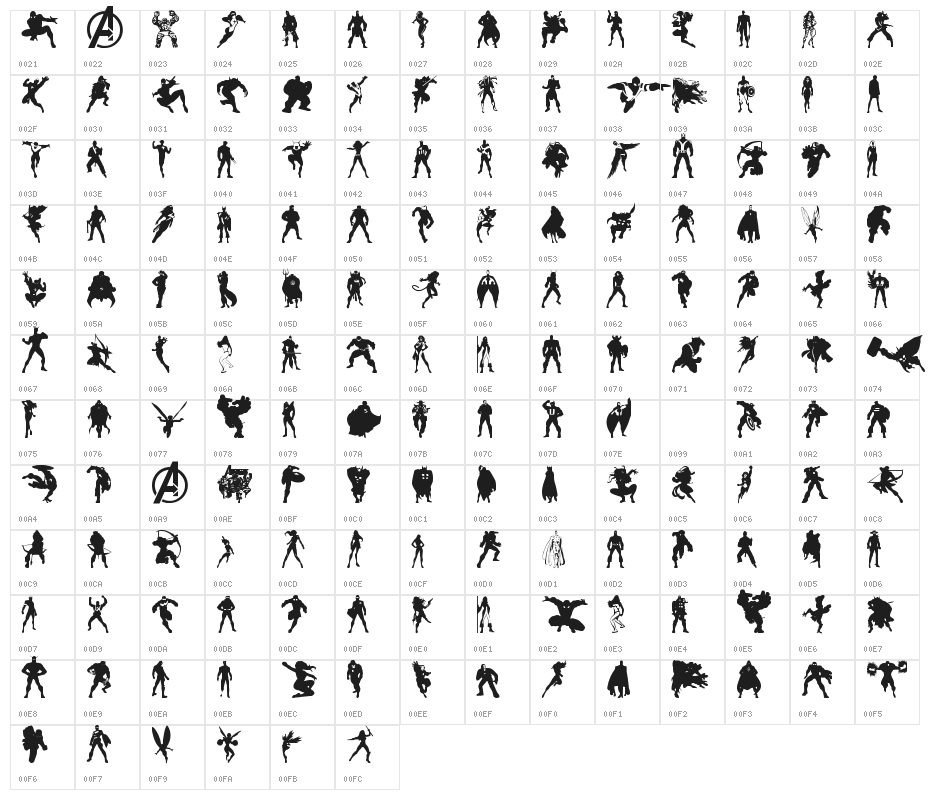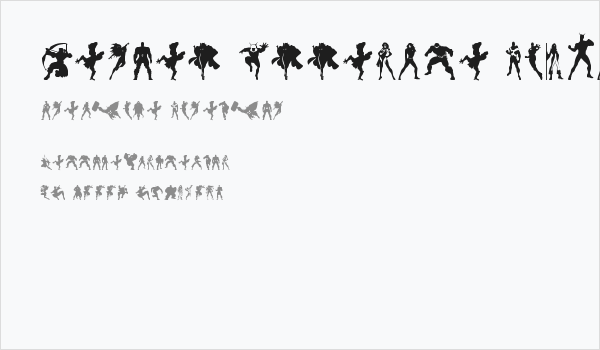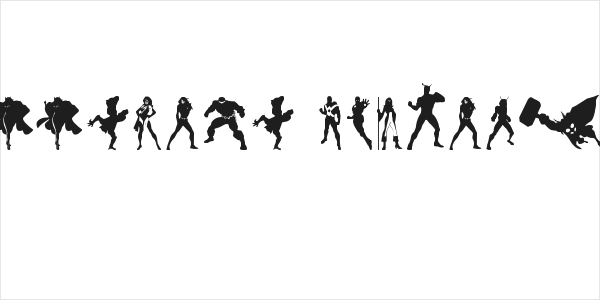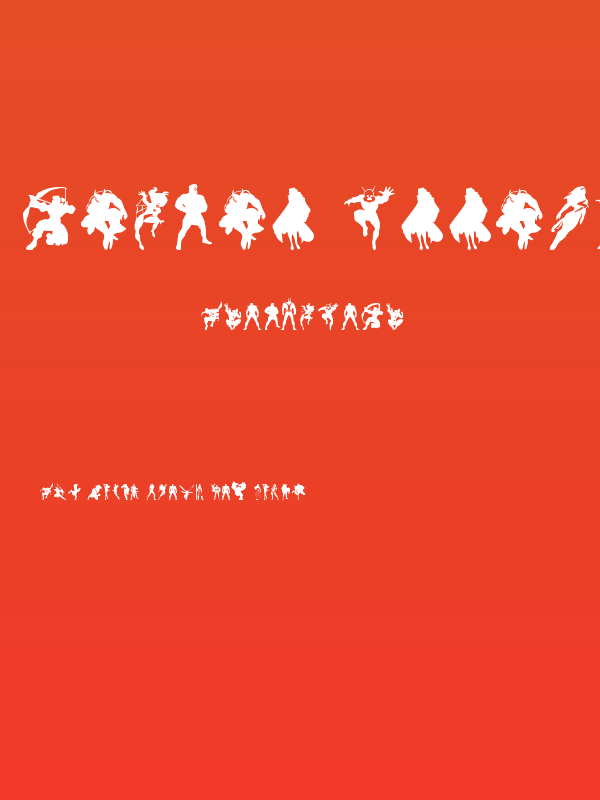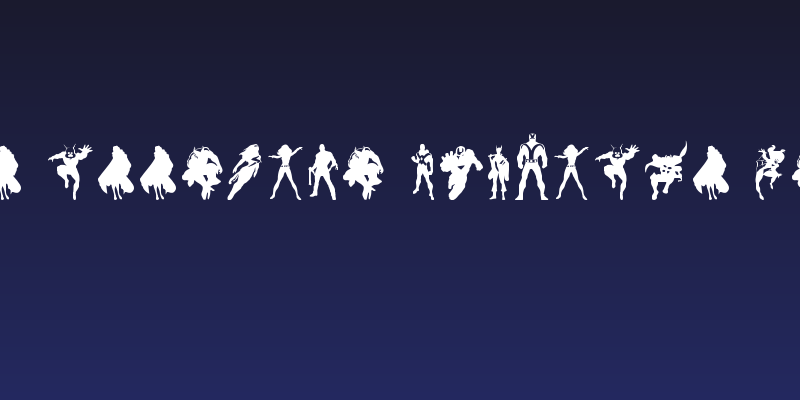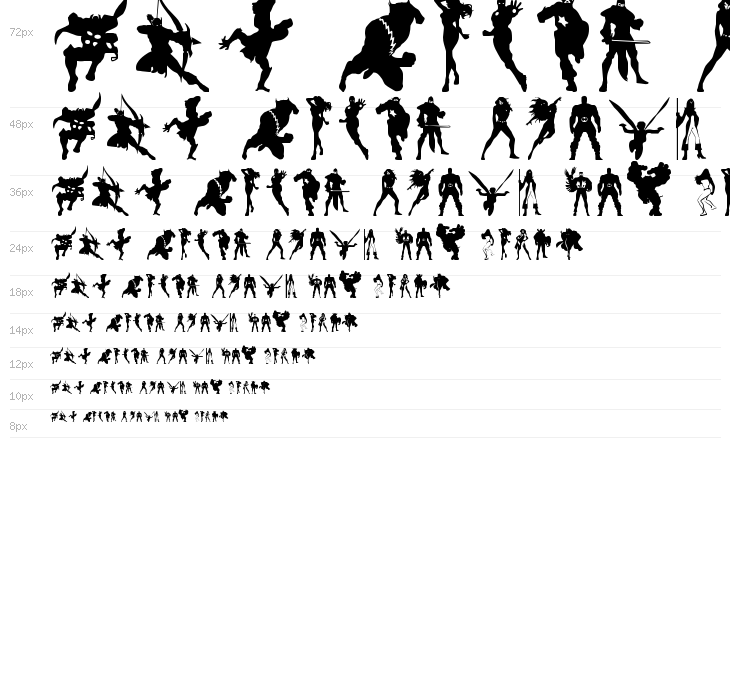
Heroes Assemble Dingbats Regular Font
Heroes Assemble Dingbats Regular Description
A collection of bold, high-contrast silhouette dingbats depicting various superhero poses and iconic stances, rendered in solid black shapes with no interior detail, emphasizing dynamic movement and action.
| Overall Style | Decorative, Pop Culture, Comic-Inspired |
| Use Case | Icons, Decorative elements, Themed graphics |
| Proposed Projects | Comic book designs, themed party invitations, posters, fan art, children's activity sheets, pop culture merchandise. |